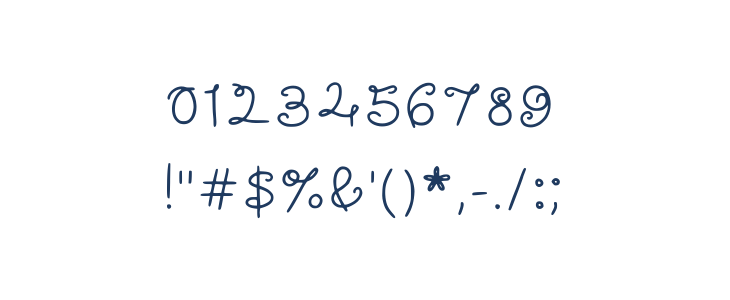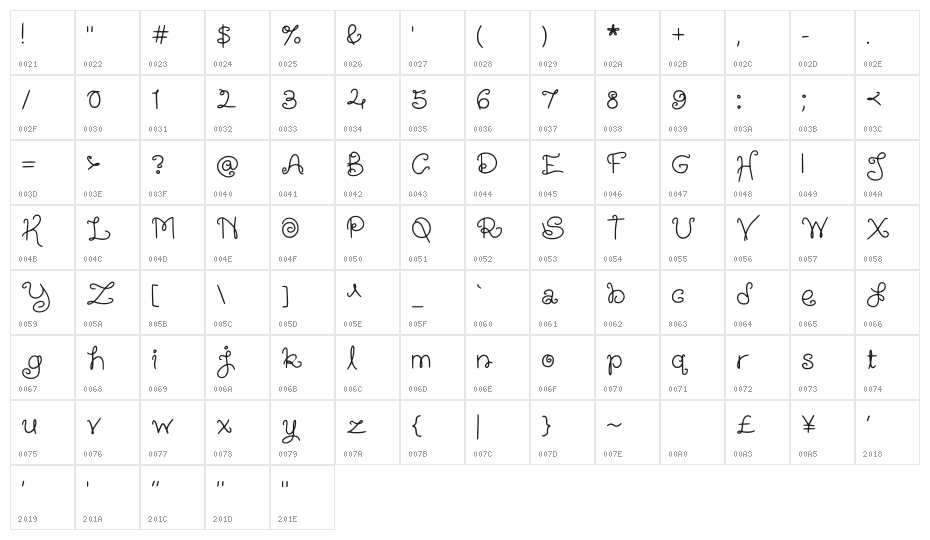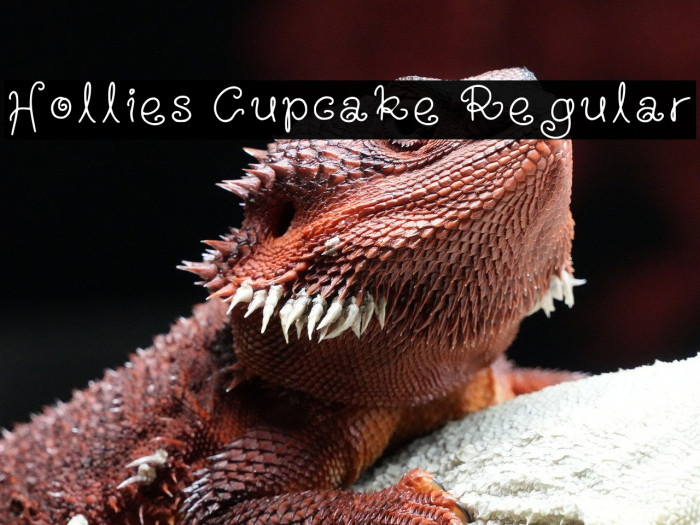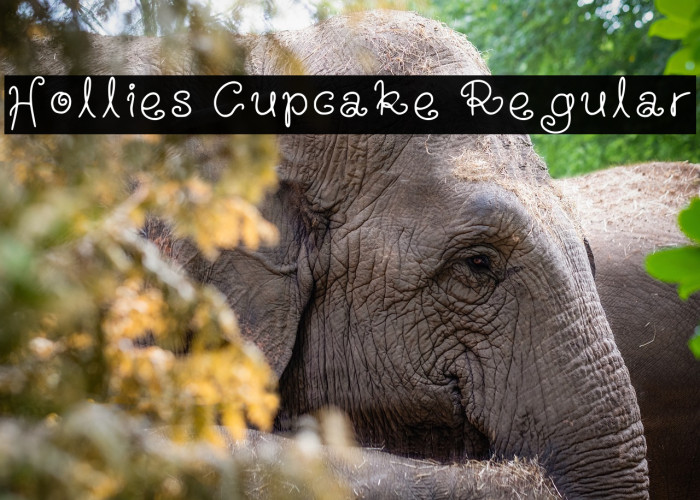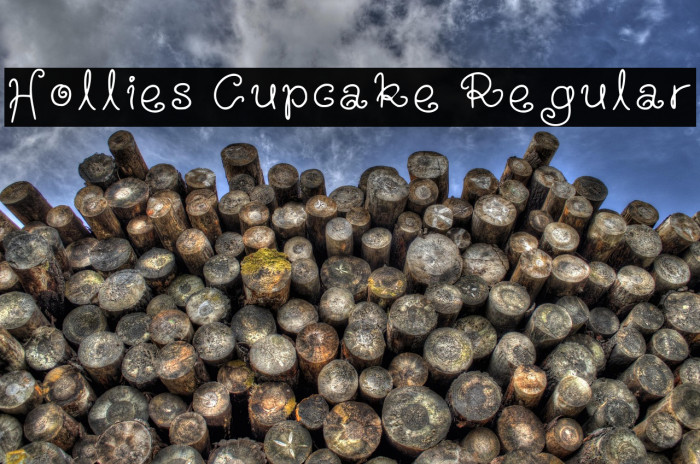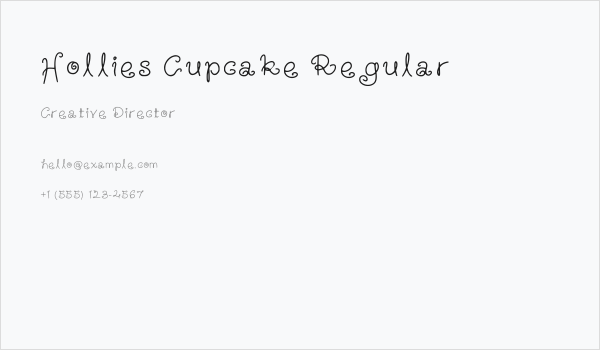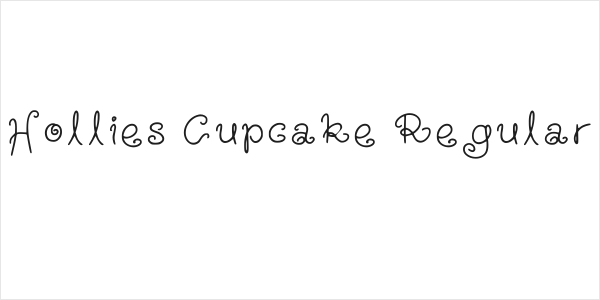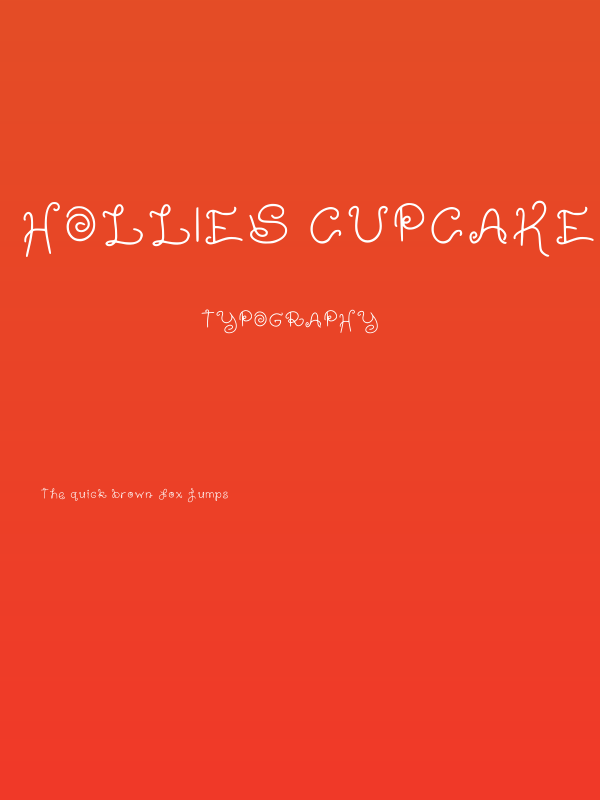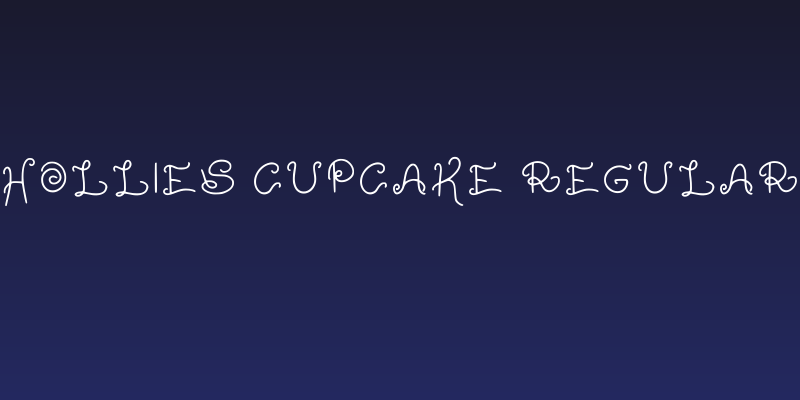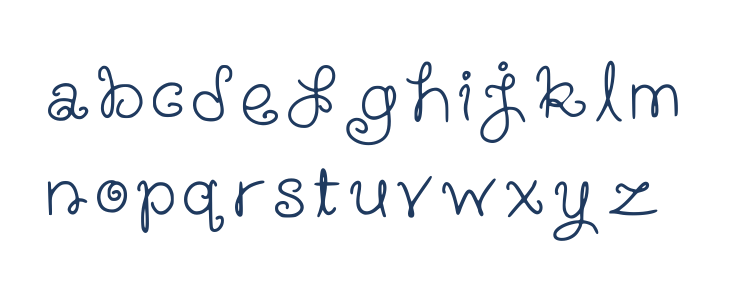
Hollies Cupcake Regular Font
Hollies Cupcake Regular Description
This whimsical and playful font features a unique, curly design that adds a sense of fun and creativity to any project. The characters are adorned with loops and swirls, giving them a hand-drawn, artistic feel. The uppercase letters are bold and distinctive, while the lowercase letters maintain a consistent style with charming embellishments. Numbers and special characters follow the same playful theme, making this font versatile for various creative applications. Its decorative nature makes it ideal for projects that require a touch of personality and flair.
| Overall Style | Playful, Artistic, Whimsical |
| Proposed Projects | Ideal for children's book covers, playful invitations, greeting cards, and creative branding projects. |